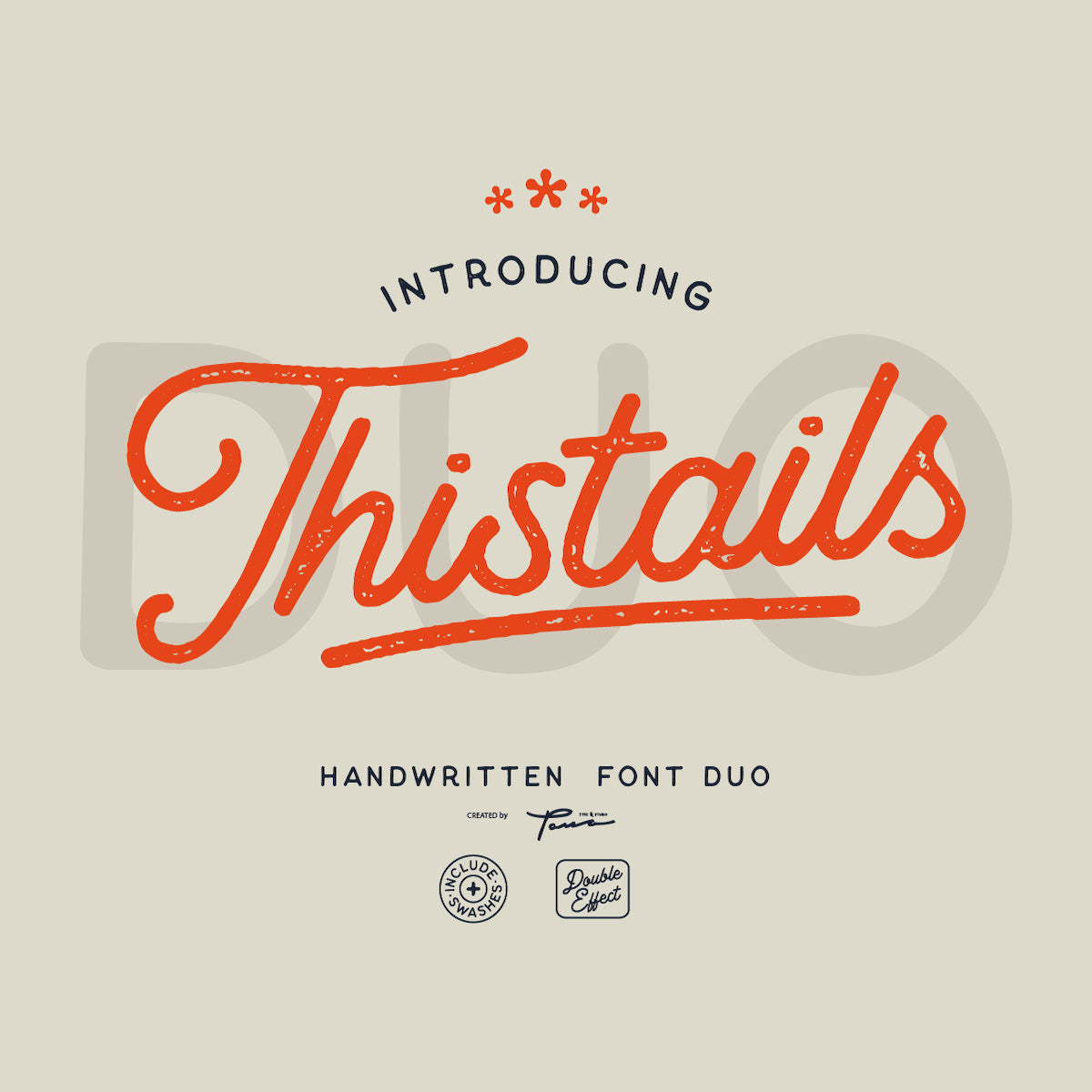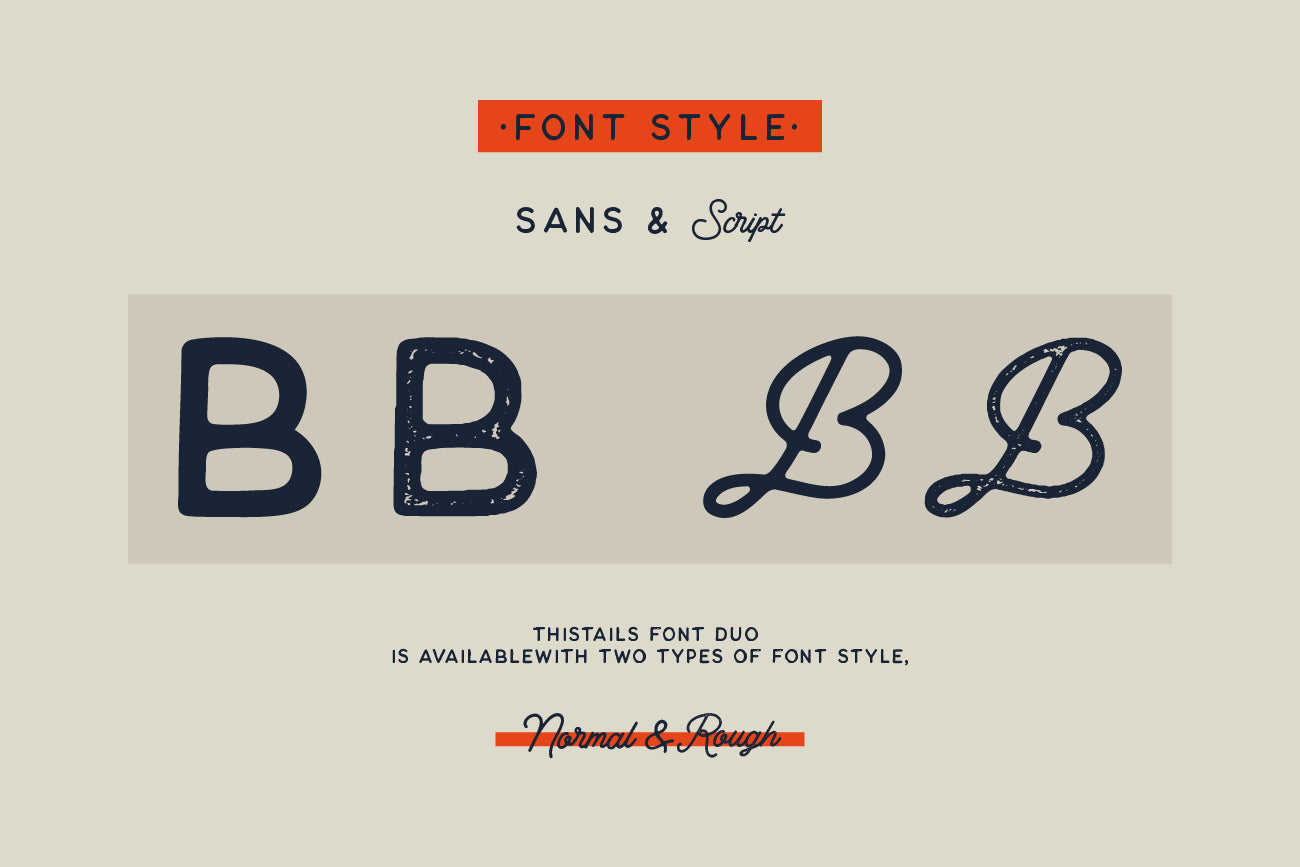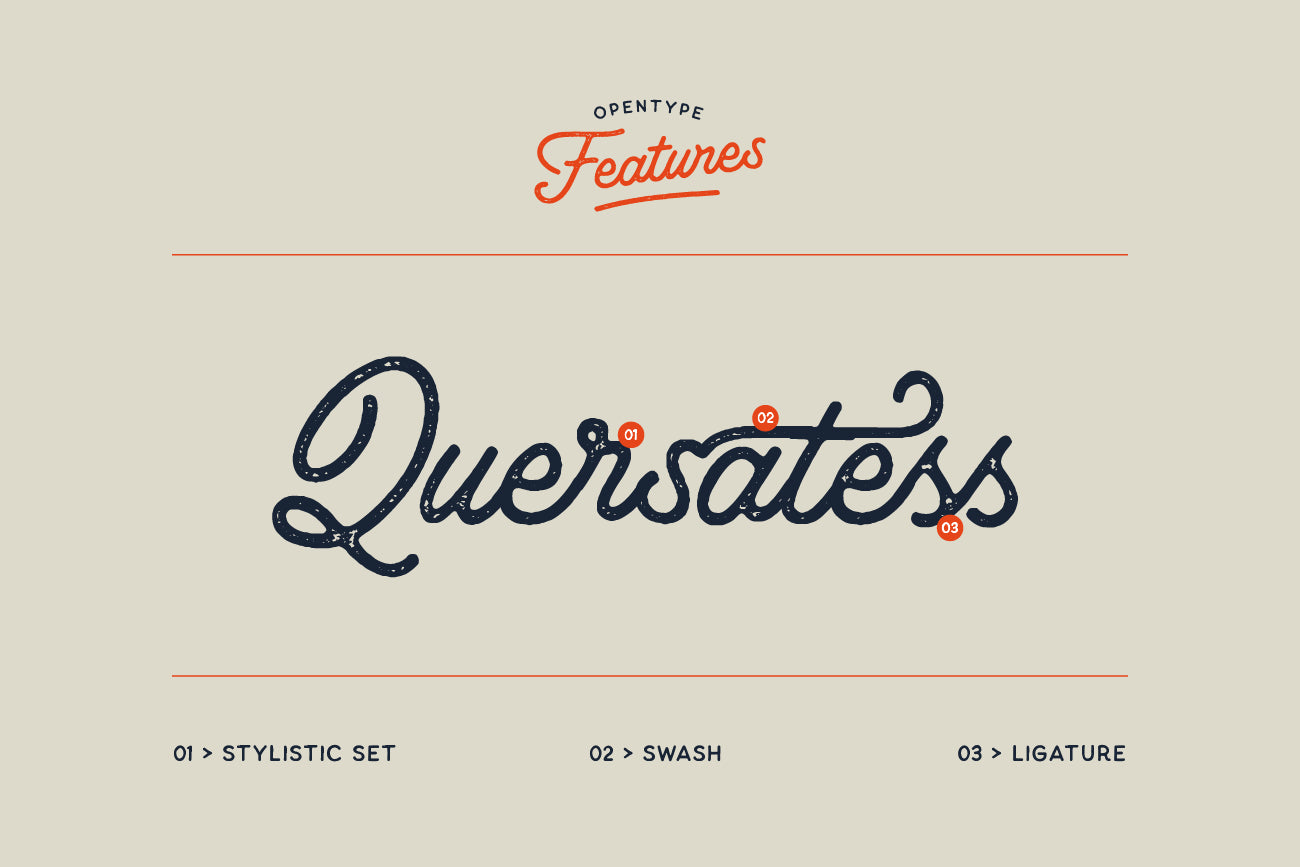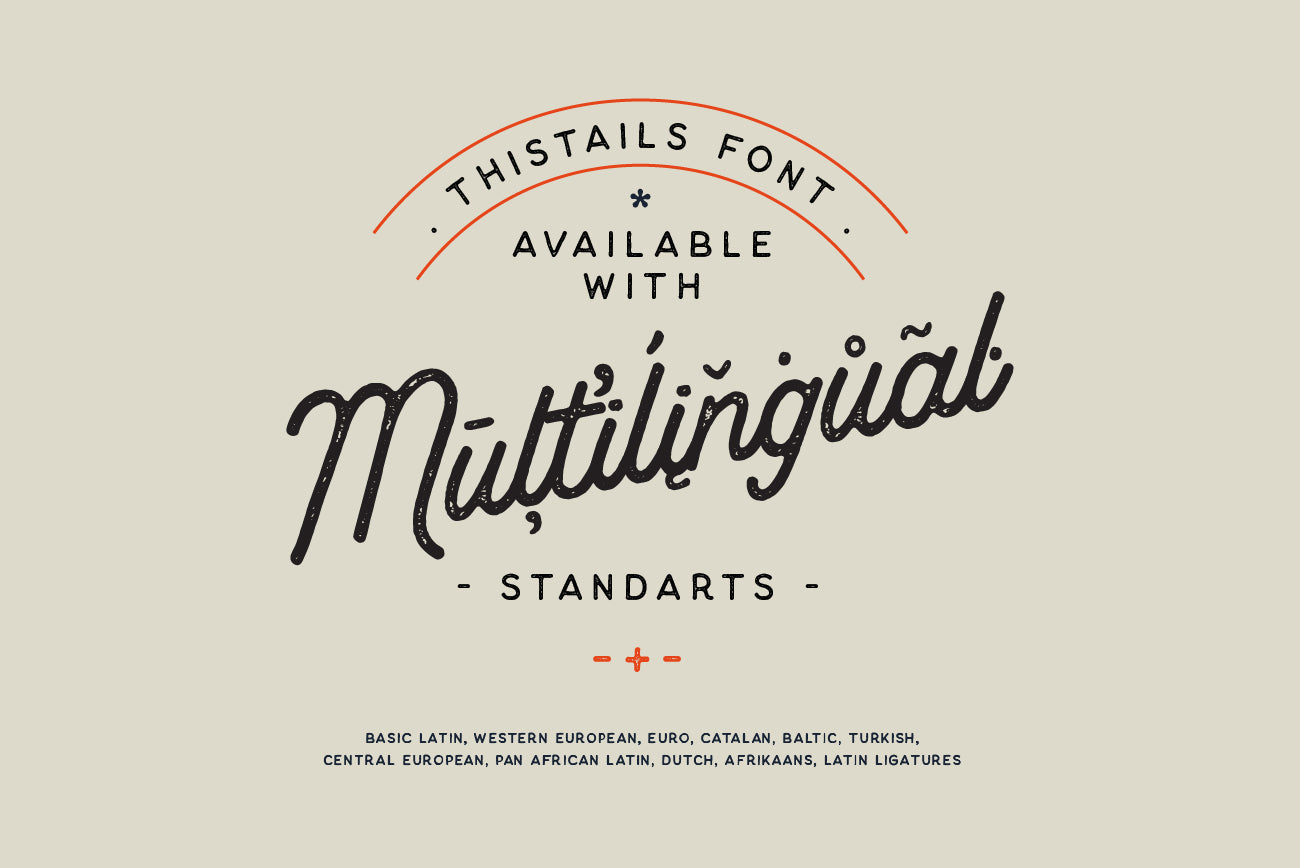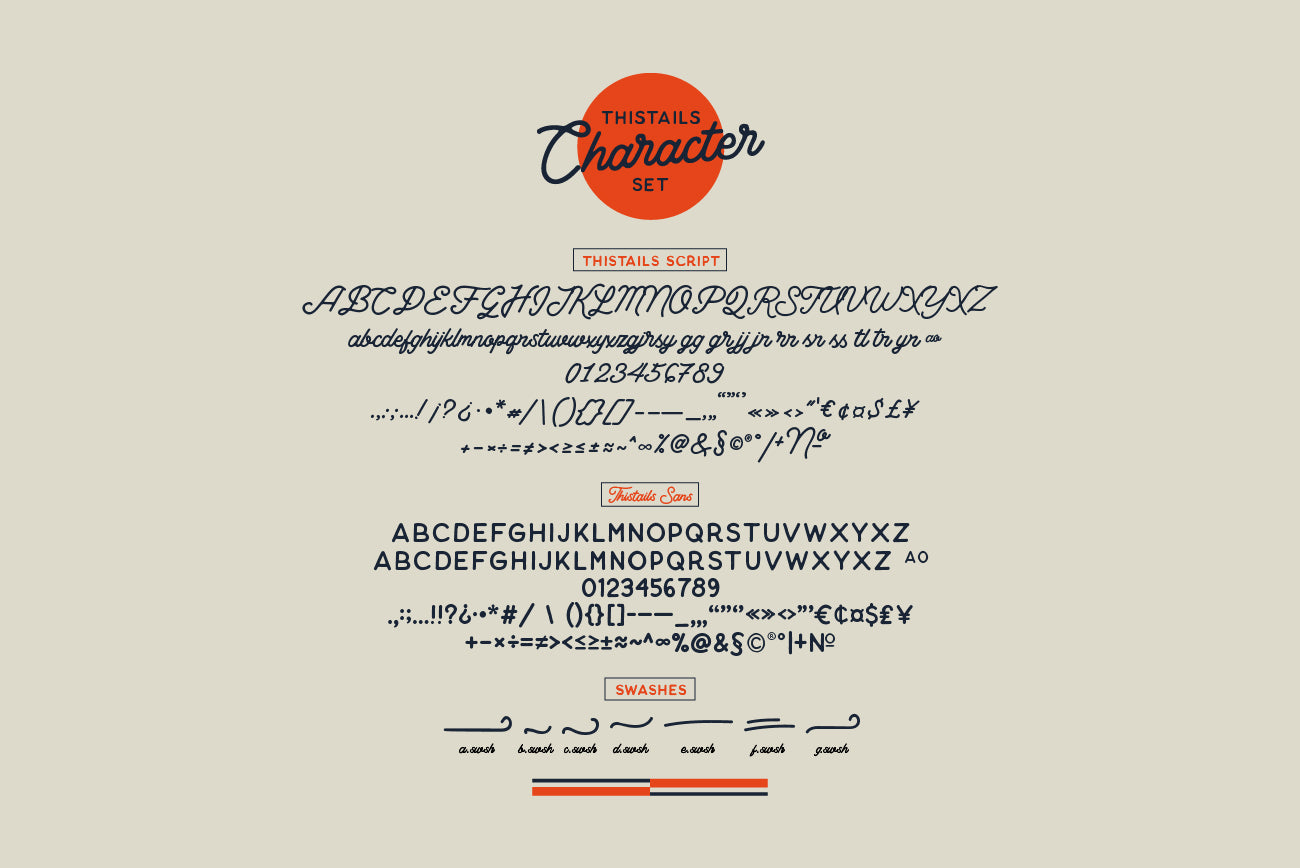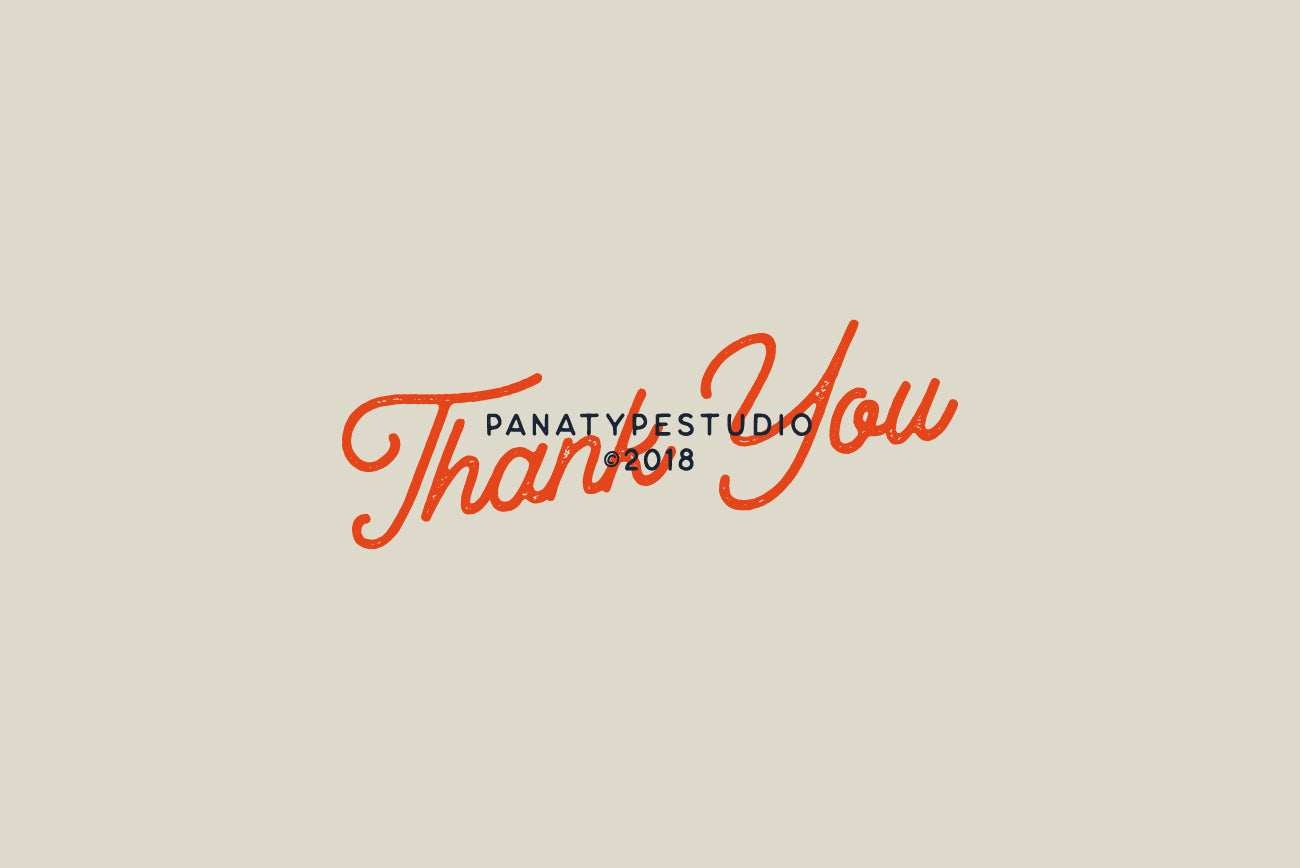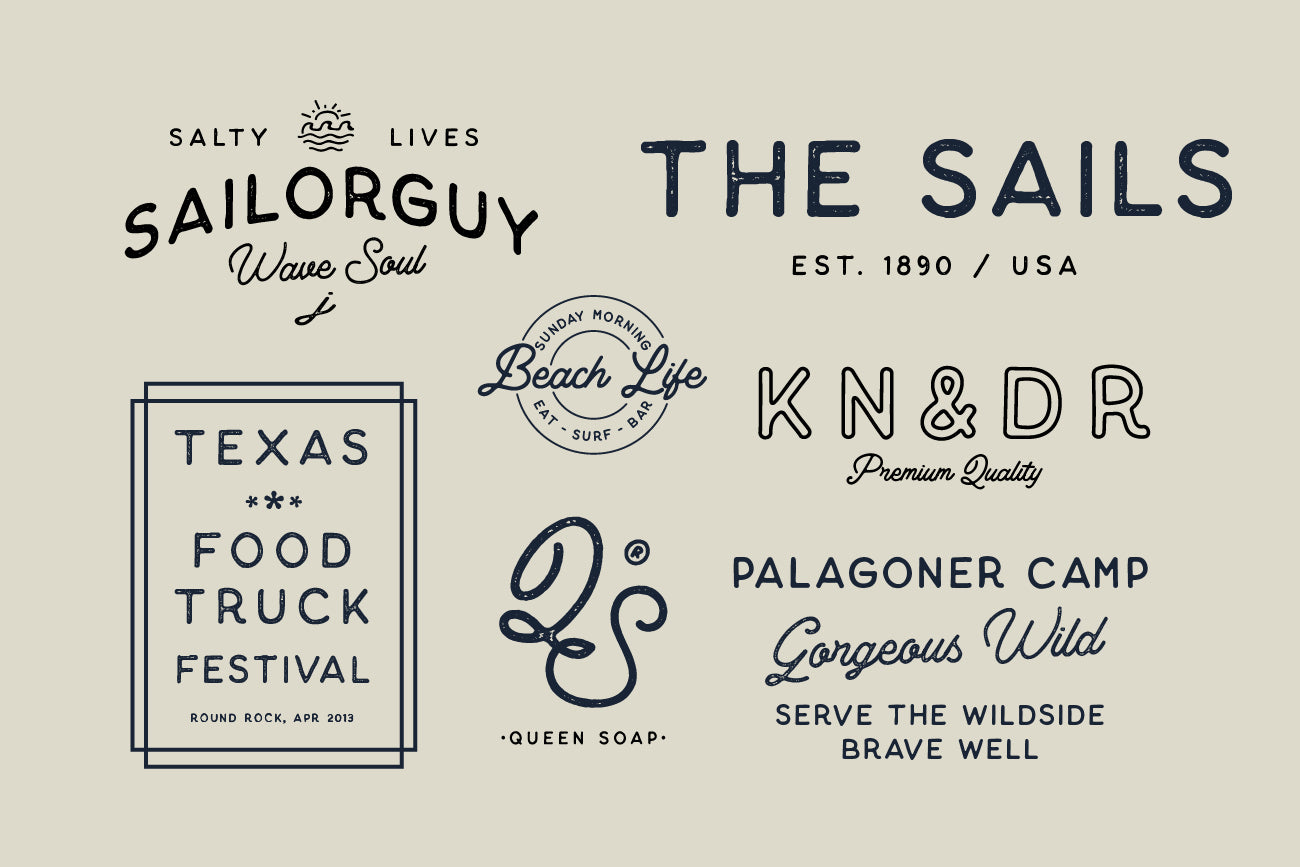
Thistails Font Duo
Thistails Font Duo includes a modern vintage script and a Display Sans serif typeface, designed for seamless combination in various design projects. Both fonts are hand-painted and crafted, offering a unique rough style suitable for diverse applications.